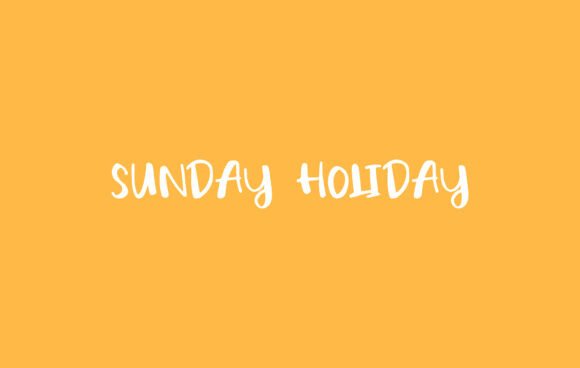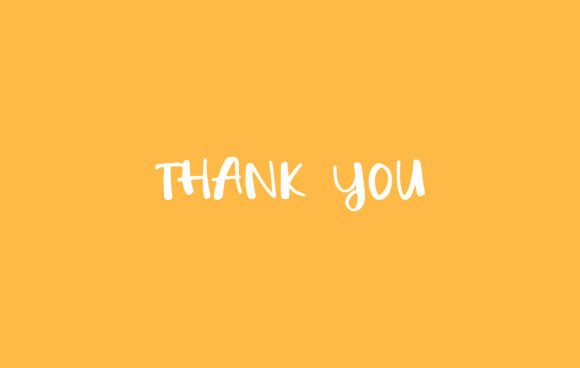
Introduction to Retrocraft Font
As a designer, there’s nothing quite like the thrill of discovering a new font that perfectly captures the essence of your creative project. You’ve spent hours pouring over ideas, and finally, you stumble upon that one special font that elevates your entire design to the next level. For me, that font was the Retrocraft Font – an authentic handwritten font with a romantic touch that instantly made my project feel more authentic and inviting.
Whether you’re a seasoned pro or just starting out, the Retrocraft Font is a valuable resource that’s sure to become a favorite. Its transparent background and beautiful typography make it a standout choice for designers looking to add a touch of elegance to their projects.
Key Features of Retrocraft Font
- Unique blend of vintage and modern elements, perfect for creative projects that require a touch of nostalgia.
- High-quality design resource with a transparent background, ideal for use in digital applications and print materials.
- Designed to be highly legible, even at small font sizes, ensuring that your text remains clear and readable.
- Perfect for use in branding, advertising, and editorial design, as well as for creating unique and eye-catching titles and headings.
Honest Review: Retrocraft Font
I recently had the chance to work with the Retrocraft Font, and I must say it’s a great addition to any designer’s toolkit. This font is perfect for those creative projects that require a touch of nostalgia and a dash of vintage charm.
Here are some things that really stood out to me: ✨
- High-quality design: The Retrocraft Font is incredibly detailed and well-crafted, making it perfect for use in both digital and print applications.
- Transparent background: This feature is super useful for designers who need to use the font over different backgrounds.
However, there are a few limitations to keep in mind: ⚠️
- Limited character set: The Retrocraft Font doesn’t have a huge character set, so it may not be suitable for longer blocks of text.
- Not suitable for all designs: While this font is perfect for retro-inspired designs, it may not be the best choice for more modern or minimalist projects.
Overall, I’m really impressed with the Retrocraft Font. It’s a high-quality design resource that’s perfect for designers who need a little bit of vintage charm in their projects. I highly recommend giving it a try, especially if you’re working on a creative project that requires a unique touch.
Retrocraft Font
The Retrocraft Font is ideal for use in design projects that require a vintage or retro aesthetic. Some common use cases include creating retro-style posters, designing vintage-inspired websites, and developing creative marketing materials.